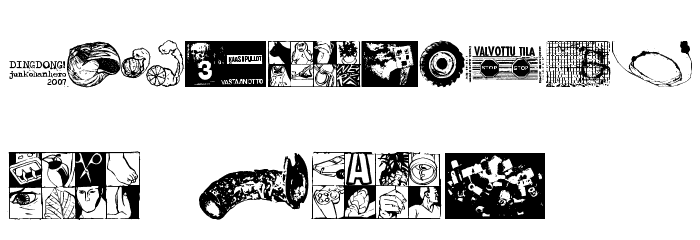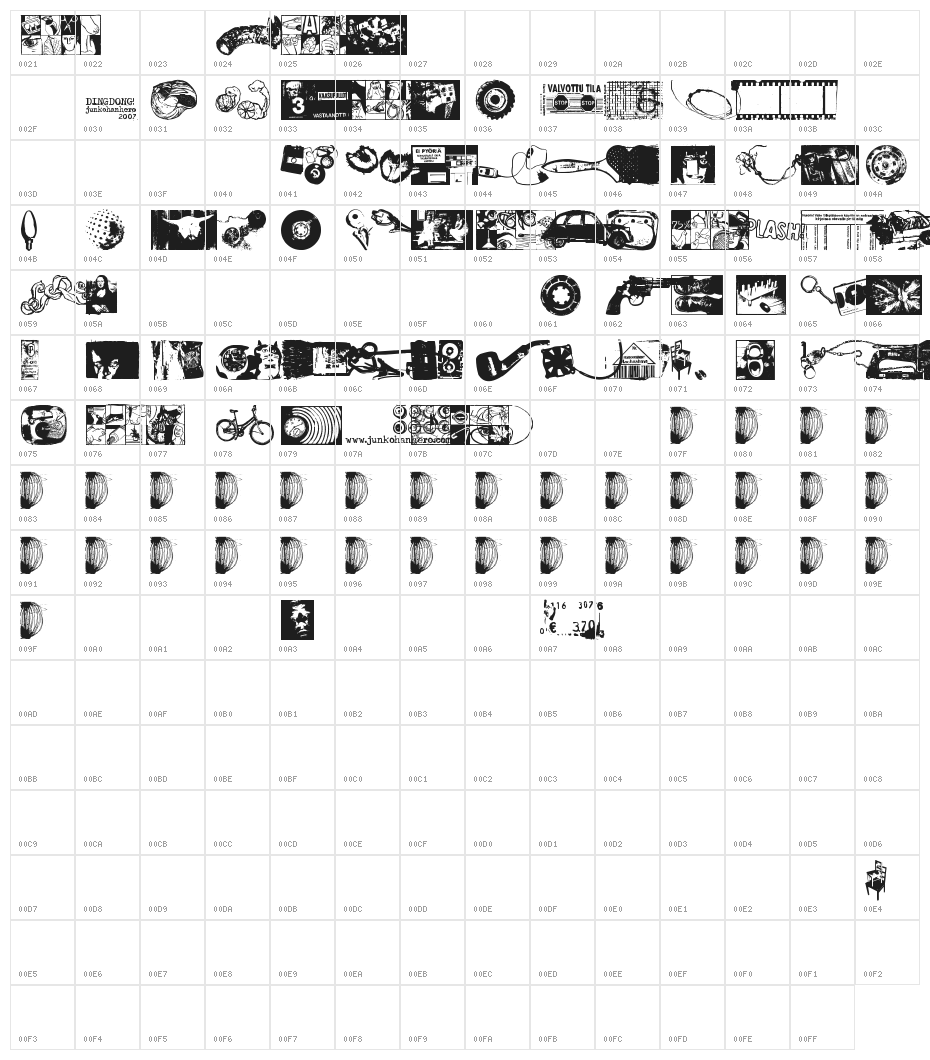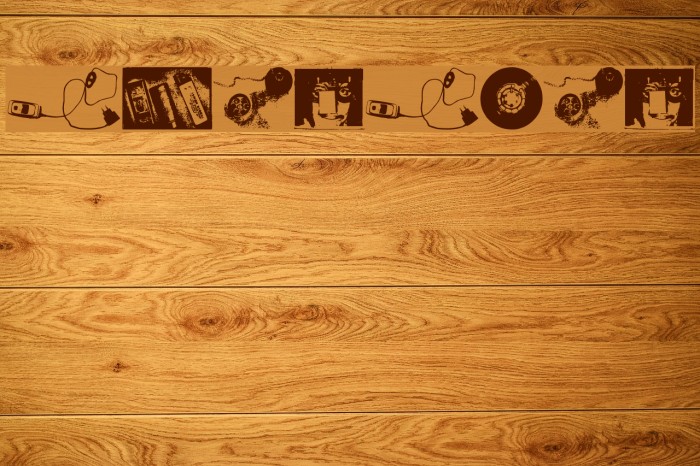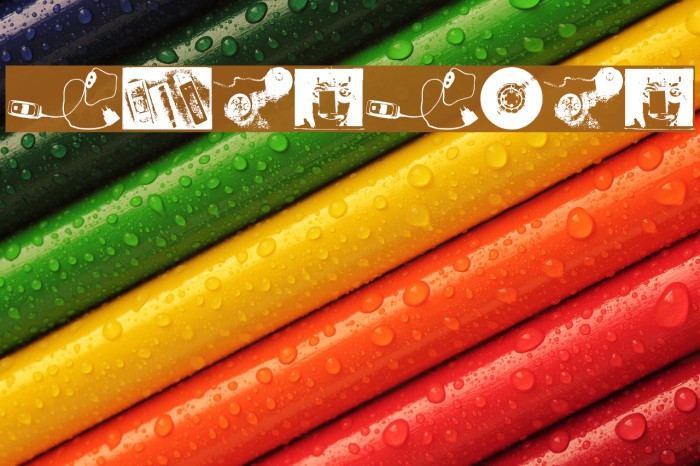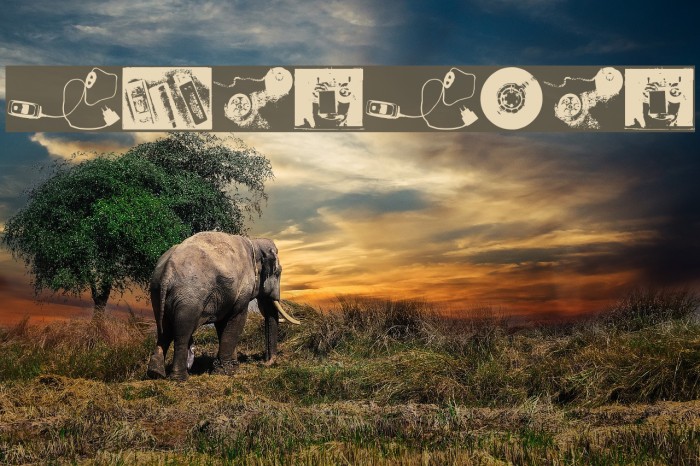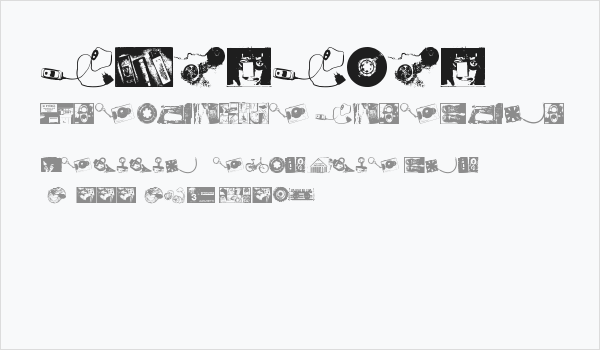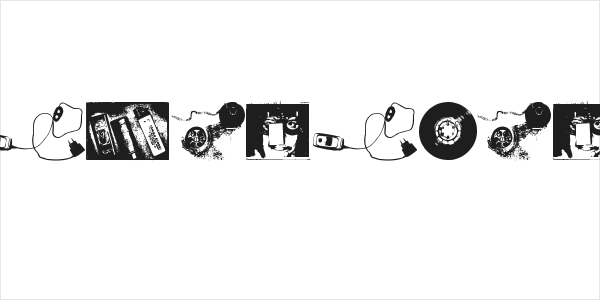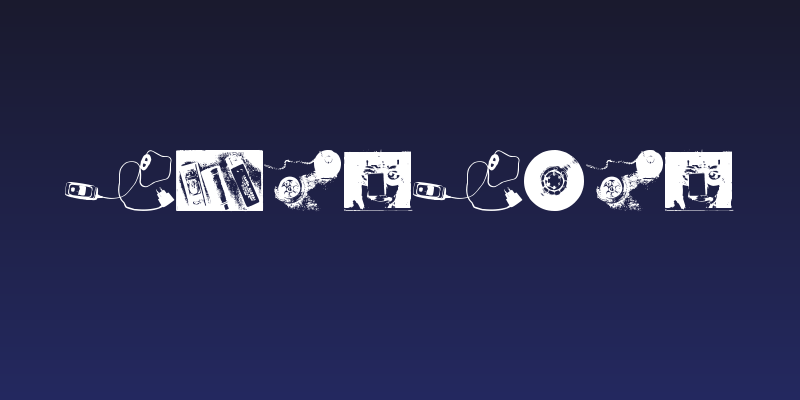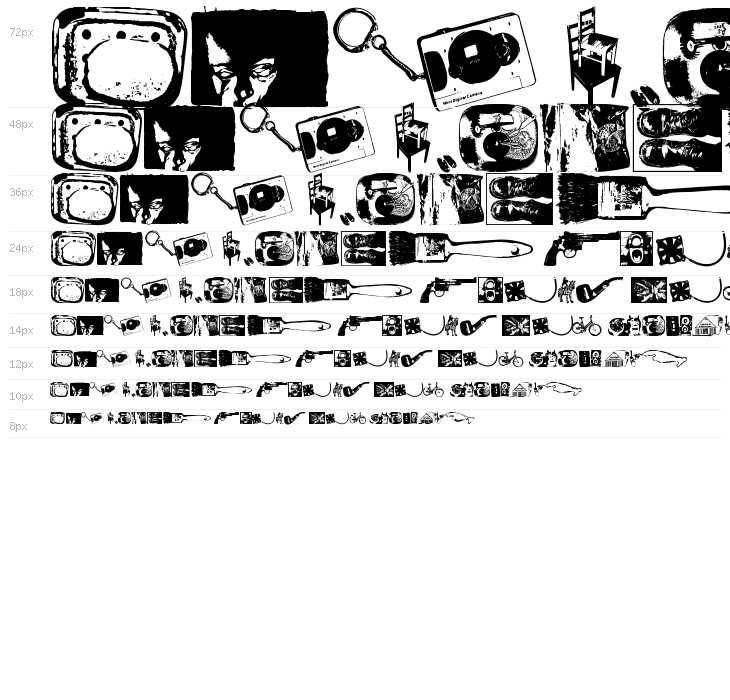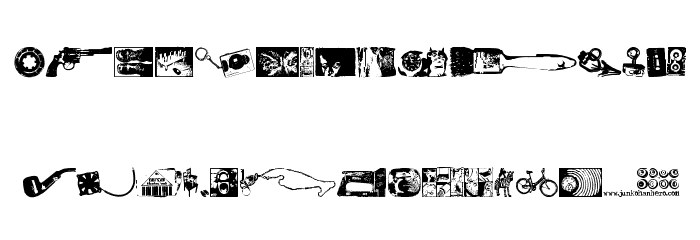
DINGDONG Font
DINGDONG Description
This is a highly creative and illustrative font that features a variety of unique and eclectic images instead of traditional alphanumeric characters. Each character is represented by a distinct graphic, ranging from everyday objects to abstract designs. The style is bold and visually striking, making it ideal for projects that require a strong visual impact. The font is not suitable for body text due to its decorative nature but excels in artistic and thematic applications.
Use CaseLogos, Posters, Artistic Projects
Proposed ProjectsIdeal for artistic projects, posters, album covers, and creative branding that require a distinctive and eye-catching design.